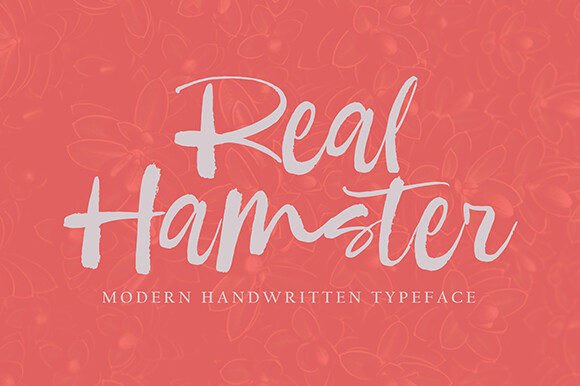
Unleash your creativity with Real Hamster Font, a script font that will make your projects dazzle! Step into a world of handwritten elegance, where every letter dances with a unique charm.
Dive into the depths of this flowing script, carefully crafted to offer an authentic touch to your designs. Its graceful curves and expressive strokes will captivate your audience, leaving them spellbound by your creations.
With Real Hamster Font, you'll embark on a typographic adventure, discovering endless possibilities for self-expression. Whether you're crafting heartfelt invitations, designing eye-catching logos, or adding a personal touch to your social media posts, this font will elevate your words into works of art.
Feel the warmth of Real Hamster Font envelop your designs, evoking a sense of timeless beauty that transcends trends. Its organic charm will effortlessly blend into your projects, adding a touch of sophistication that speaks volumes.
Join the creative revolution and immerse yourself in the world of Real Hamster Font. Let your imagination soar as you create stunning visuals that leave a lasting impression. This font is your ticket to unlocking a world of design possibilities, where every project becomes a masterpiece.